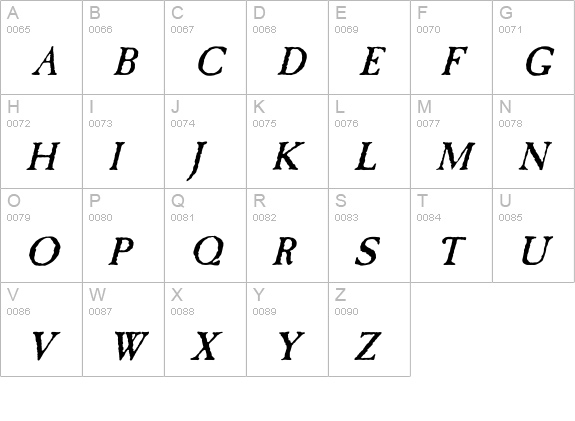
CaslonAntiqueItalic Font Details
Caslon Antique Italic is a classic and elegant font that exudes sophistication and vintage charm. Its slanted and ornate style adds a touch of flair to any design project, making it perfect for invitations, posters, and branding materials. The intricate detailing and graceful curves of Caslon Antique Italic evoke a sense of old-world beauty and refinement. The best part? Caslon Antique Italic is available for free download at FontsMarket.com. Now you can easily add a touch of timeless elegance to your projects without breaking the bank. Don't miss out on the opportunity to enhance your designs with this stunning typeface that captures the essence of tradition and sophistication. Download Caslon Antique Italic today and elevate your creations to new heights of style and elegance.